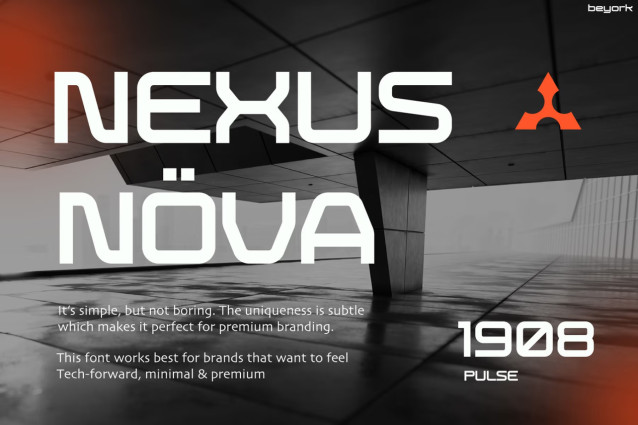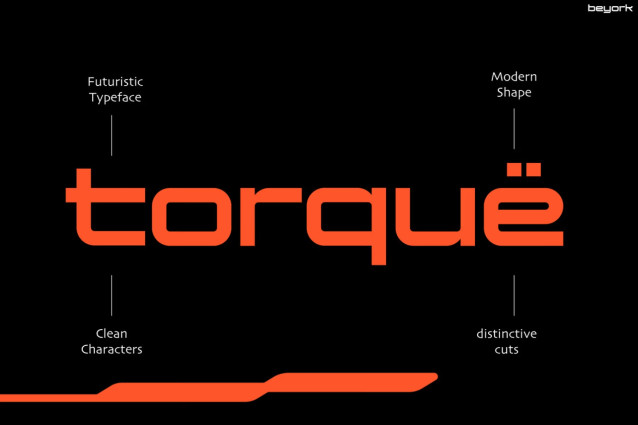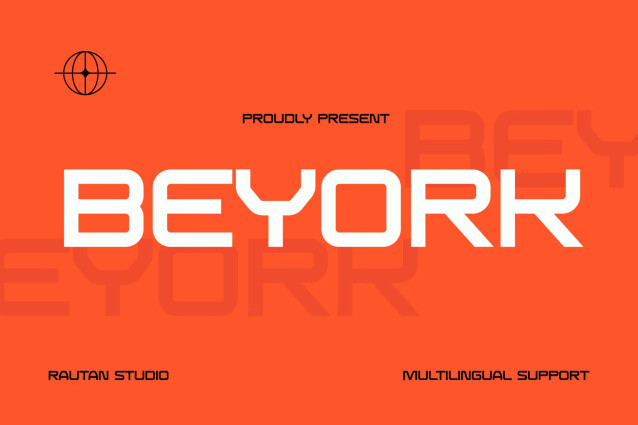
Beyork Font
Beyork Font is a bold futuristic display font with wide, extended proportions and a clean, tech-forward aesthetic. Its structured geometric letterforms feature rounded outer corners paired with sharp, distinctive inner cuts, creating a balanced look that suggests speed, innovation, and modern engineering.
Natural fits include sci-fi game titles, esports graphics, tech startup branding, automotive promotions, futuristic movie posters, and electronic music album covers. It works best in large display sizes and headlines where its wide stance and mechanical details can command attention.